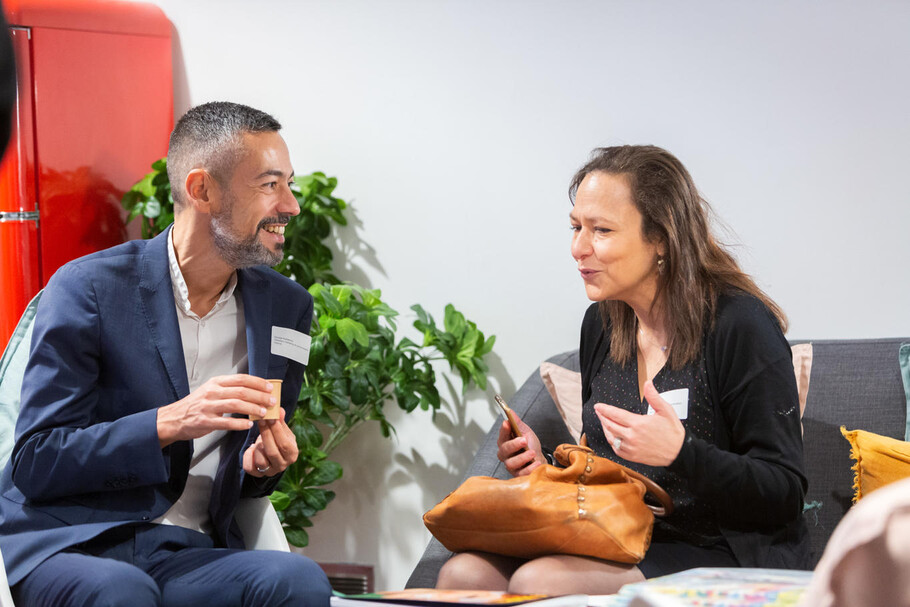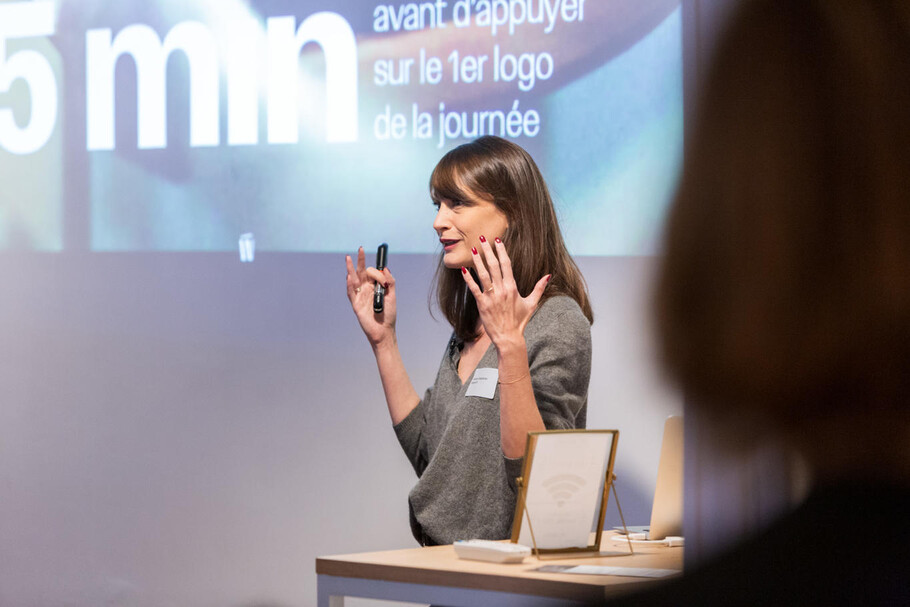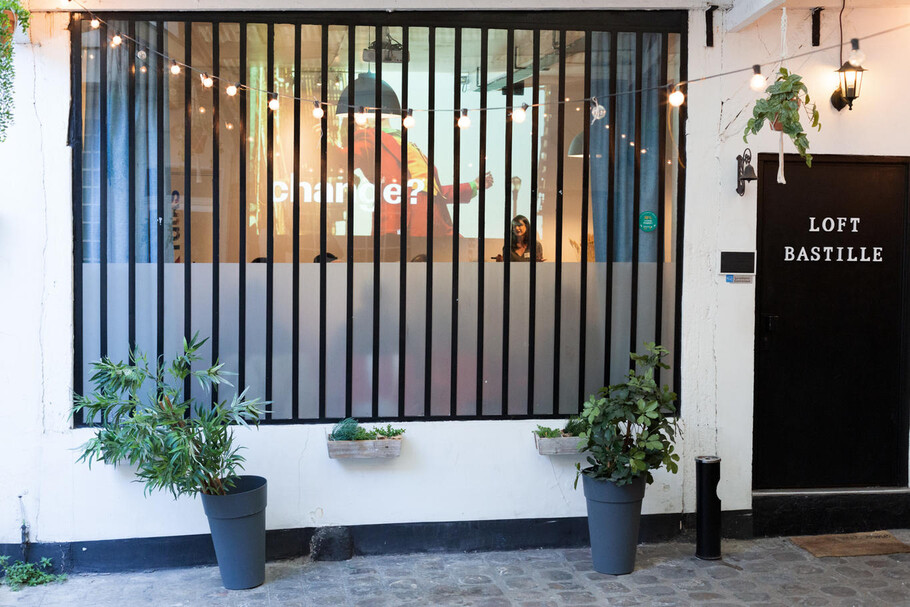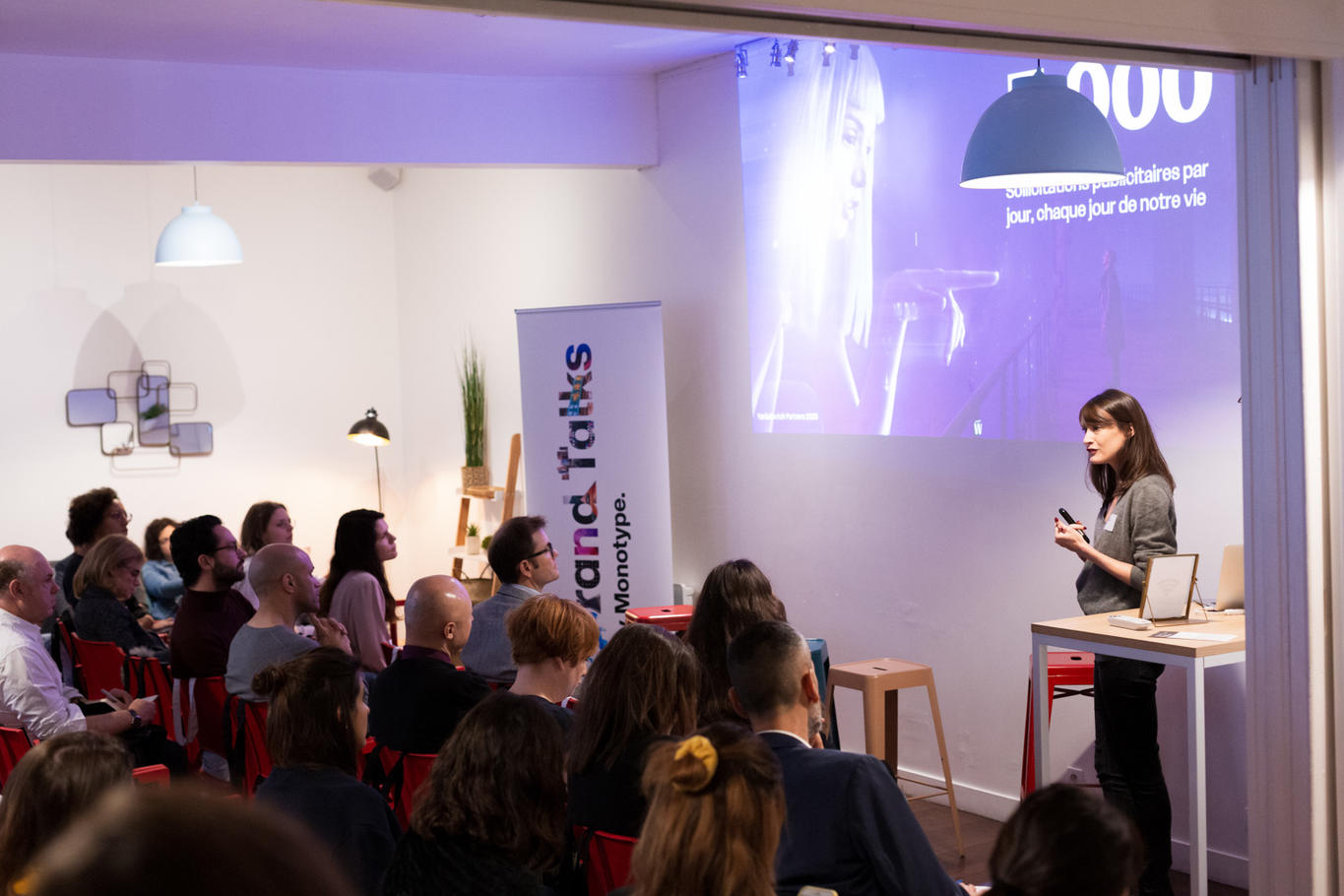
Brand Talks Paris 2019: Keeping up with change
“ Even brands with a well-established heritage such as Calvin Klein, Yves Saint Laurent or Burberry are also streamlining the expression of their brand logo and typography. ”
Johanne Casagrande, Executive Director at l’Agence W
On November 7, Monotype hosted our second Brand Talks in Paris to explore the ways brands are impacted by both social and economic changes and how they can evolve. A few years ago, brands did not have the same considerations, but they now must keep pace with major issues such as environmental concerns, changing societal expectations, and new ways of engaging with the audience.
Johanne Casagrande, Executive Director at l’Agence W, started the morning with an inspiring introduction to the notion of ‘blanding’ (meaning bland, tasteless) and how it is becoming the new branding. ‘Blanding’ evokes the simplification of visual elements including logos and typography, where brands tend to move away from serif to sans-serif fonts.
“This is a trend that can be easily linked to young tech companies such as Google, Airbnb or Spotify,” Casagrande explained, “but the reality is that even brands with a well-established heritage such as Calvin Klein, Yves Saint Laurent or Burberry are also streamlining the expression of their brand logo and typography, even if it means leaving their uniqueness on the way.” Casagrande added that Sans-serif fonts are preferred as they seemed to be better when it comes to legibility on screens and help improving customer experience.
Later in her presentation, Johanne shared a project with hotel chain Ibis, where the company decided to offer its customers a different design experience in each hotel. The idea was to have a playful and welcoming identity that is expressed in the brand’s “Happy mood” service spirit. This project relied on the use of variable fonts in the new logo that would adapt to any audio files. The interest for variable fonts is undoubtedly expanding and this is a trend that we expect will grow in the coming year. The rise of variable fonts and the technicality of them was also emphasized by Wissam Bounejra, Type Consultant at Monotype during the later panel discussion.
In her intervention, Melanie Cotte, Brand Director at Citéo focused on another key trend in the European market: sustainability. She shared her experience of creating a sustainable brand from beginning to end, which required that every design element would have to be sustainable. They looked at the weight of logo, the use of sustainable fonts and the color choice in their palette for paper and ink saving, and believe more companies will start following suit in the near future.
The speakers concluded by emphasizing the importance of a richer brand ecosystem and increased focus on the user experience. Brands today are more exposed than ever, so it is equally important to ensure that every touchpoint supports a brand’s identity, vision, and delivers a strong customer experience